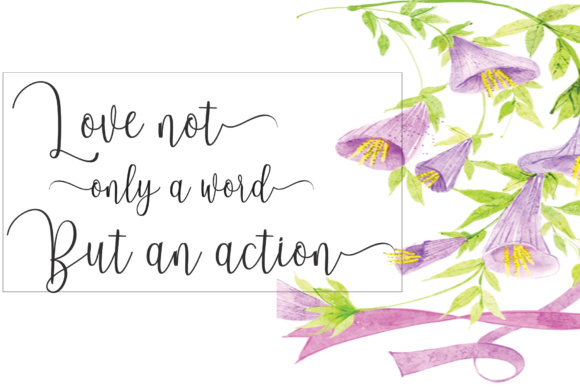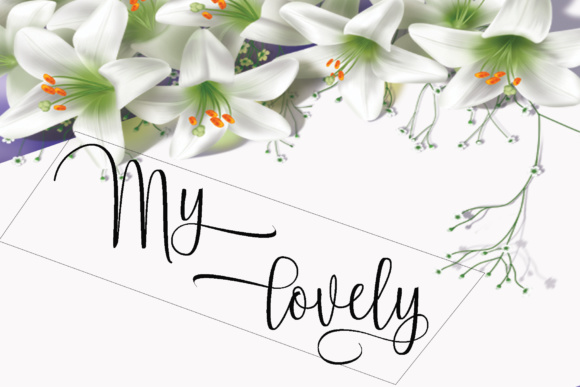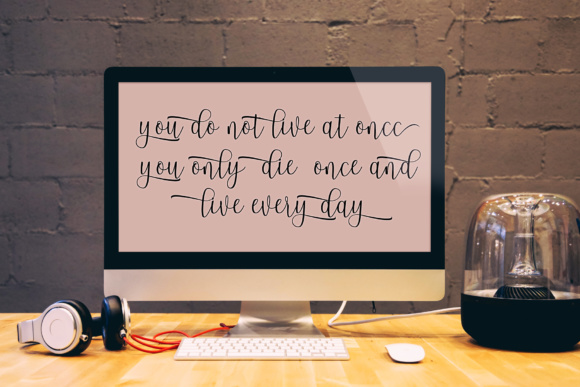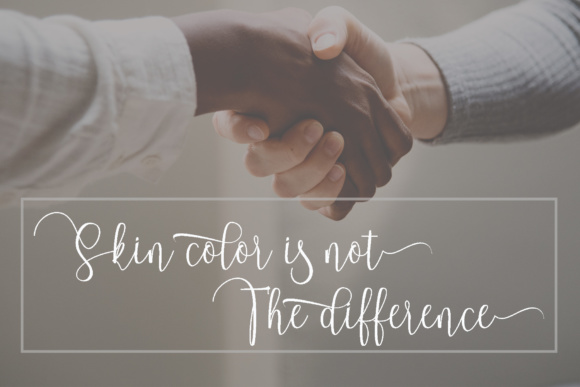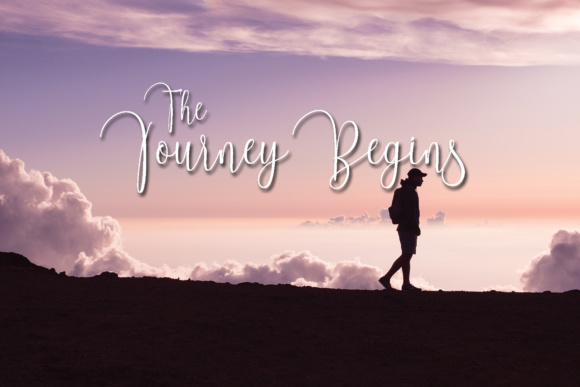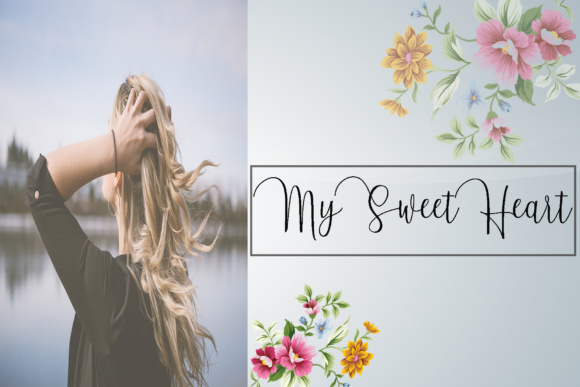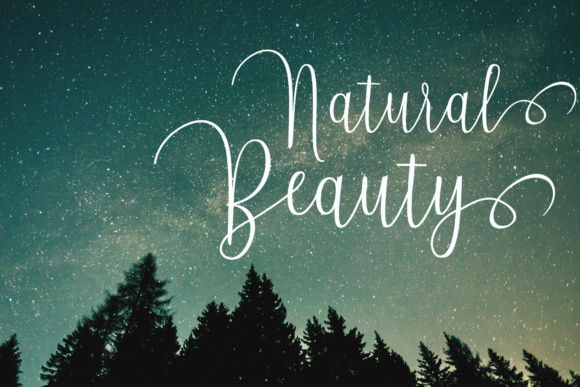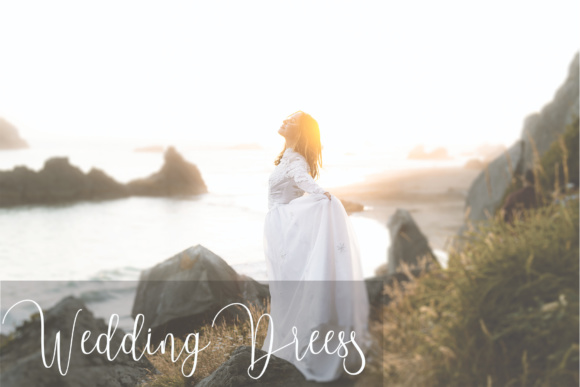
Almonds Script Font
About Almonds Script Font
The Almonds is a modern calligraphy typeface. It has been handwritten with its own characteristics. It’s prefect for invitations, signatures, blogs, social media, and much more!